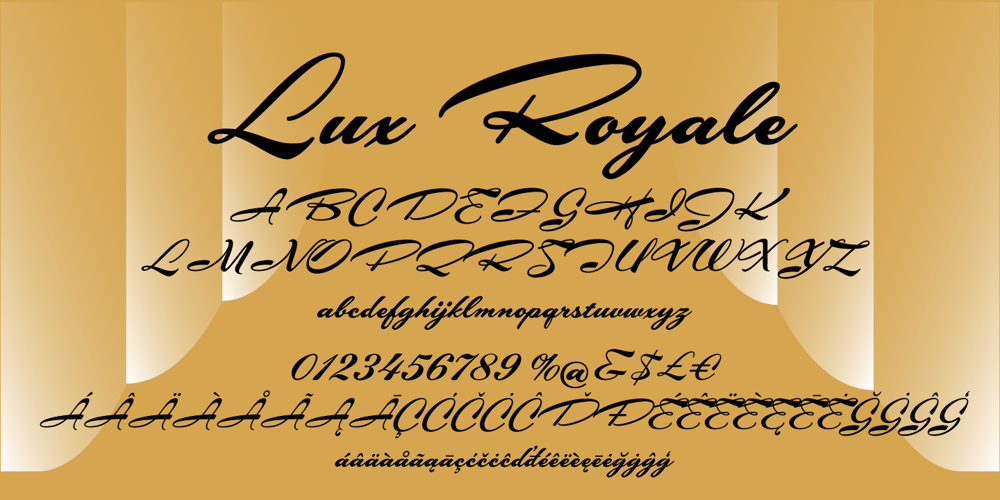
Lux Royale JF Font Family was designed by Jason Anthony Walcott and published by Jukebox Collection. Lux Royale JF contains 1 styles and family package options. Lux Royale is a stylish script font from Jukebox that is classy and sophisticated. It seems to fit with upscale soirées and a night out with the Rat Pack. The heavier weight and small x-height give Lux Royale a unique look that is both timeless and vintage.